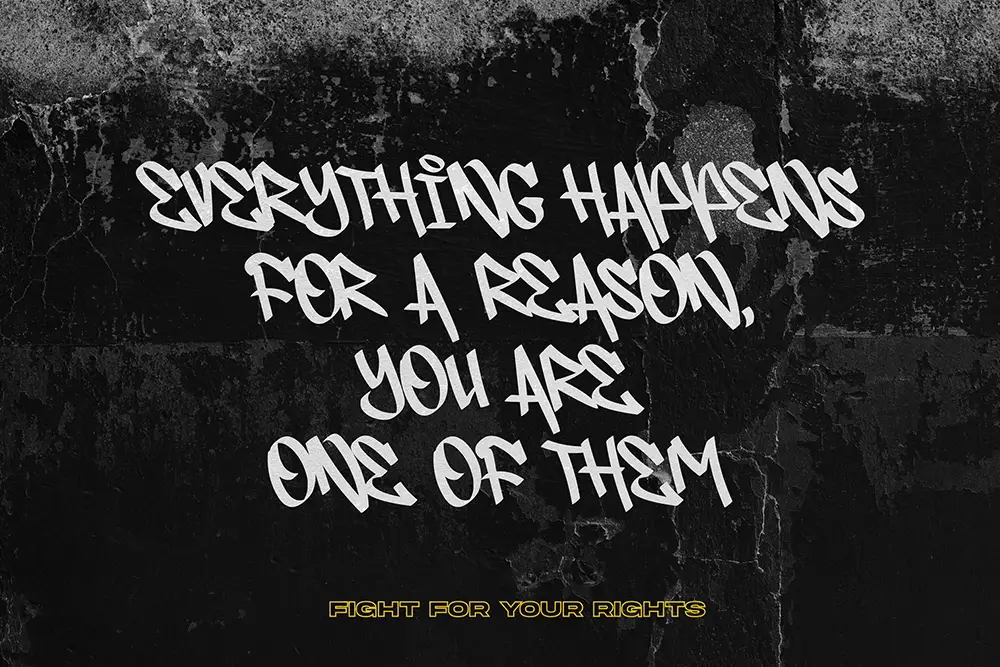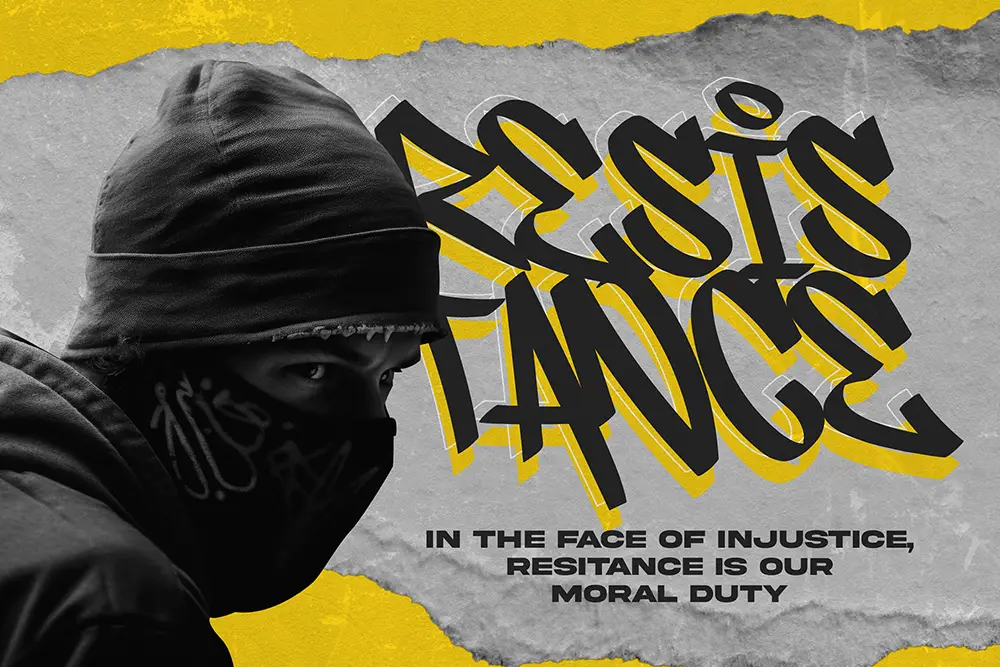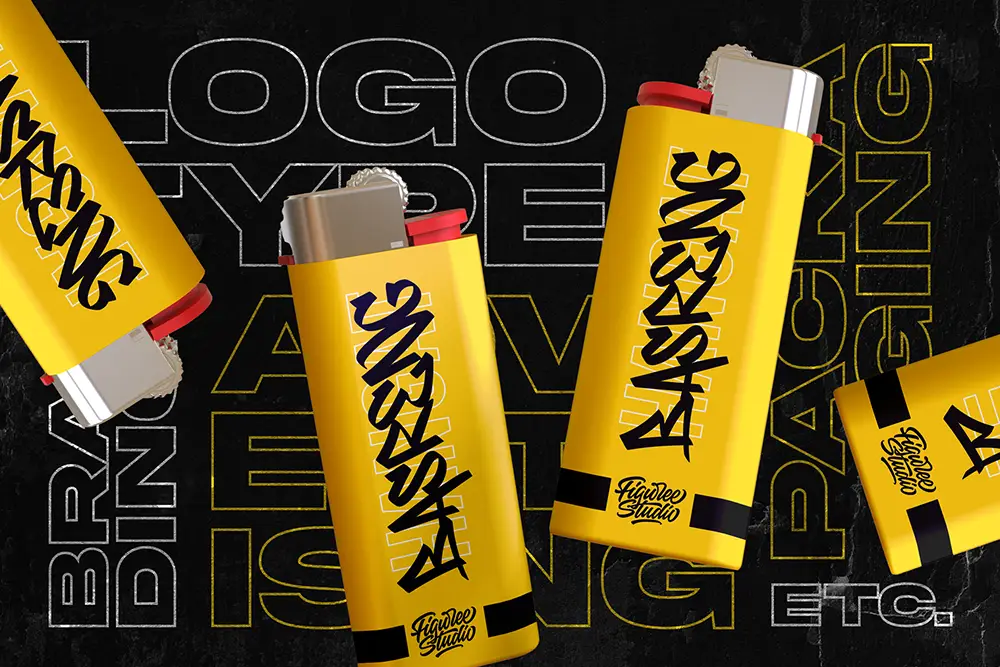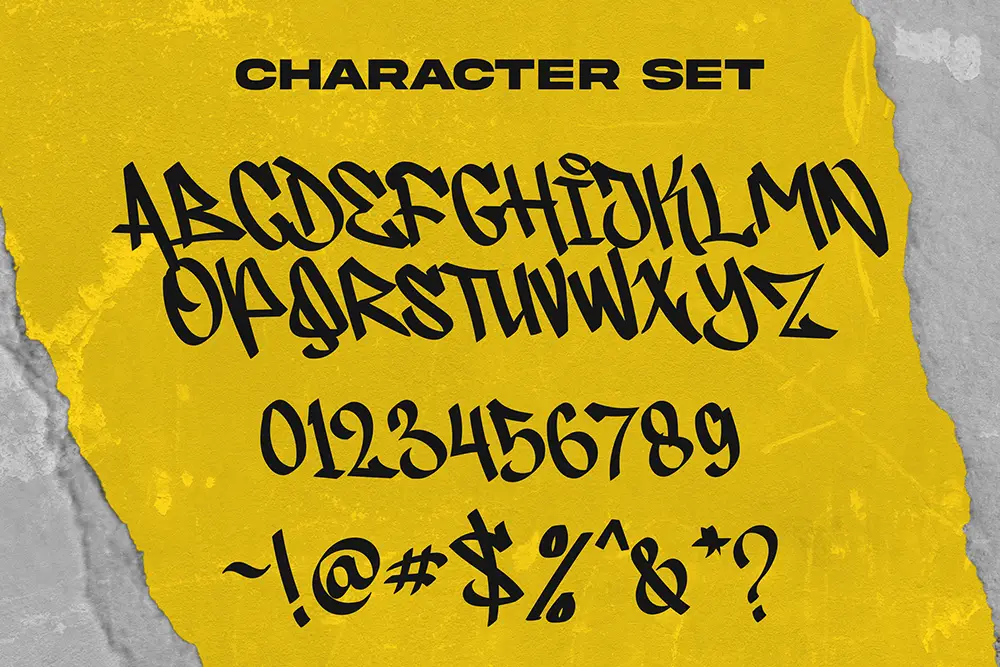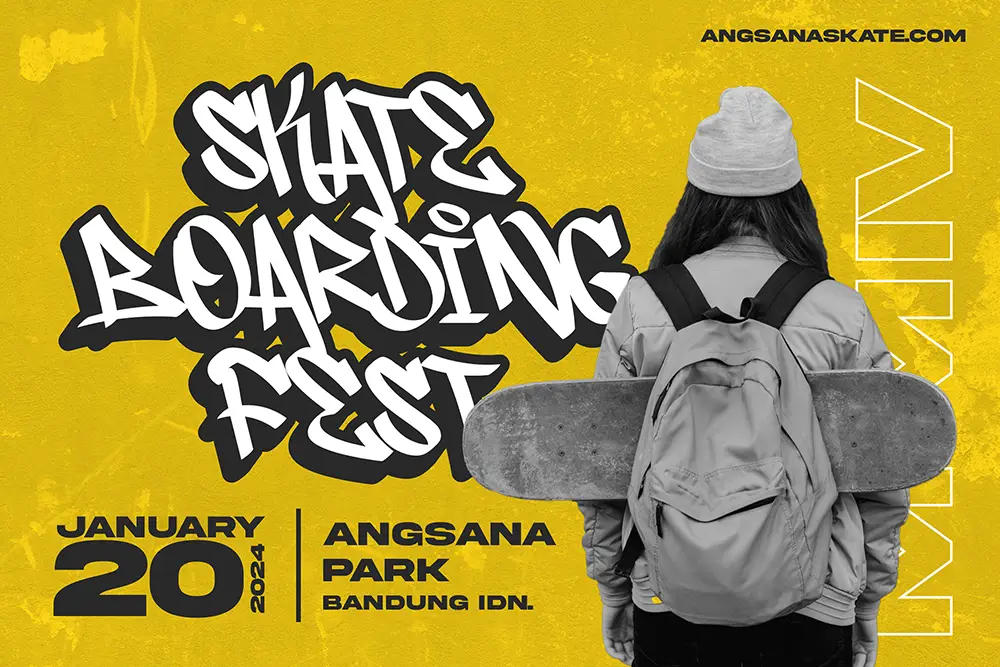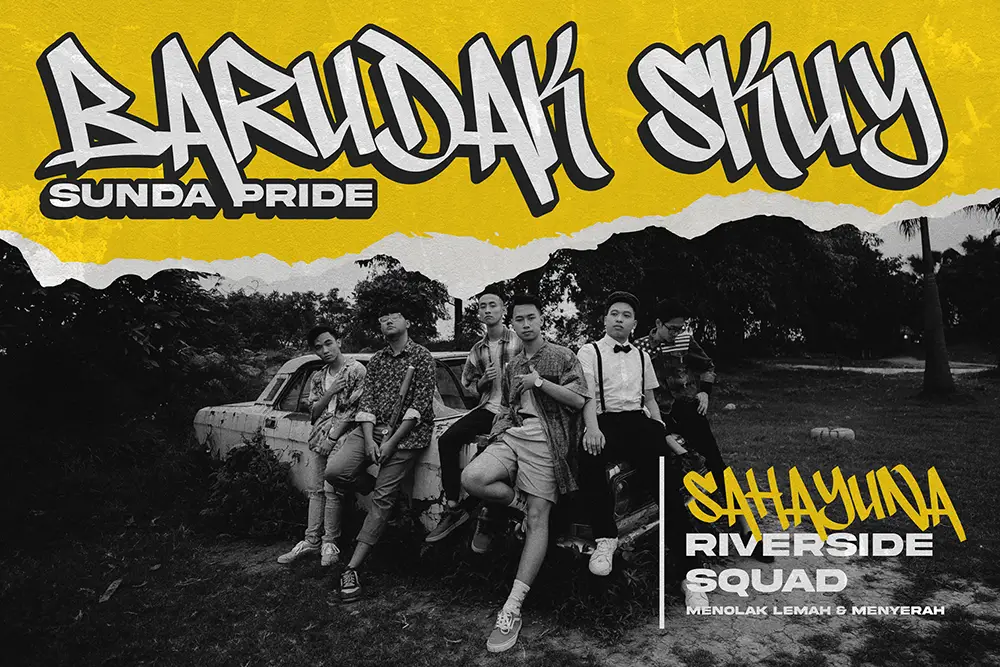
Bring Urban Chaos to Life with Darksht – Urban Graffiti Font
If you’re hunting for the ultimate urban graffiti font that captures street energy, bold expressions, and raw personality, meet Darksht. This graffiti typeface is a rebellious tribute to the world of street art, created to deliver electrifying visuals in every project. With uppercase and lowercase characters, multilingual support, and rough, authentic strokes, Darksht is the font of choice for designers looking to inject attitude into their compositions.
From digital art to poster headlines, this graffiti display font stands out with its fearless energy. Whether you’re designing YouTube thumbnails, album covers, sticker packs, or social media graphics, Darksht gives your message a defiant and expressive voice.
Why Darksht is the Ultimate Urban Graffiti Font
When choosing a graffiti-style font that speaks the language of the street, Darksht brings more than style—it brings soul. This font doesn’t mimic graffiti—it owns it. With every letter crafted to mimic quick, confident marker strokes, Darksht reflects the flow of genuine tagging, freestyle, and urban rebellion.
What makes this font stand out is the creative balance between controlled design and unrefined energy. It’s perfect for anyone who wants to break the grid and communicate loud, expressive messages.
Key Features:
- Uppercase and lowercase characters for flexible combinations
- Multilingual support for global use
- Graffiti-inspired letterforms that feel authentic and spontaneous
- Ideal for digital art, music posters, album covers, YouTube graphics, and more
- Designed for creative rebels who want their visuals to scream attitude
Why Designers Love Darksht
Designers love fonts that not only look unique but also function smoothly in various contexts. Darksht is bold, legible, and wildly expressive—ideal for fast-paced creative workflows. It gives you the power to design headlines that spark attention, logos that resonate with energy, and posters that burst with character.
Whether you’re working on a personal art project or a high-energy commercial campaign, Darksht adapts like a pro. Its marker-style strokes give your work a hand-crafted vibe, while still maintaining clean vector precision for scaling across formats.
Font Pairing Recommendation
Pair Darksht with these clean and modern sans-serif fonts for maximum impact:
- Bolde – Powerful Sans Serif
A commanding font with dynamic contrast—great for subheadings and clean layout text. - Ignazio – Modern Sans Serif
Its strong, versatile style balances the wild energy of Darksht with structural clarity.
Final Words
Elevate Your Design Game with the Ultimate Urban Graffiti Font
Darksht isn’t just another graffiti font. It’s a visual punch that helps your design stand tall in a crowd of bland typefaces. With a combination of authentic street style, uppercase and lowercase flexibility, and extensive multilingual support, Darksht gives your work a gritty edge that feels fresh, untamed, and absolutely unforgettable.
If you’re ready to turn your creative vision into a rebellious statement, Darksht is the graffiti font that brings the noise. Own your aesthetic. Claim the streets. Make your mark.